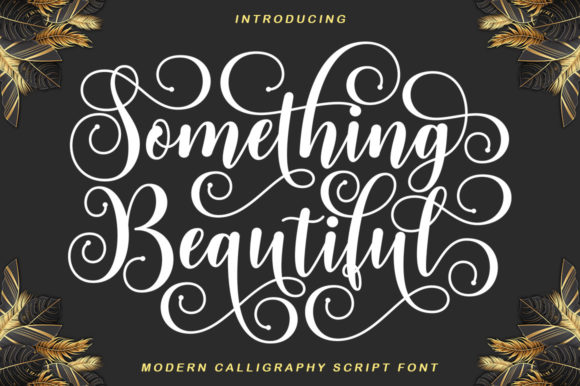
Welcome to the world of Something Beautiful, a script font that captures theessence of elegance and charm. Crafted with meticulous attention to detail, this font is a mesmerizing dance of lines, curves, and flourishes that will leave you breathless.
Indulge in the beauty of its carefully crafted glyphs, each stroke a testament to the artistry of the IRF Lab Studio. Experience the magic as your words transform into captivating works of art, radiating a timeless sophistication that will elevateyour designs to new heights.
Unleash your creativity with Something Beautiful, a font that knows no boundaries. Its versatility extends to a myriad of projects, from enchanting wedding invitations and heartfelt love letters to captivating social media graphics and eye-catching branding materials. The possibilities are limitless, bound only by your imagination.
Step into a realm of visual splendor where your creations come alive with a touch of elegance. Something Beautiful is more than just a font; it's an expression of your individuality, a reflection of your refined taste. Let your designs radiate a timeless charm that will leave a lasting impression.
Dive into the world of Something Beautiful today and discover the true power of typography. Let your words dance with grace and poise, leaving a trail of enchantment wherever they go. Experience the joy of creating designs that captivate and inspire, leaving your audience spellbound by the sheer beauty of your creations.